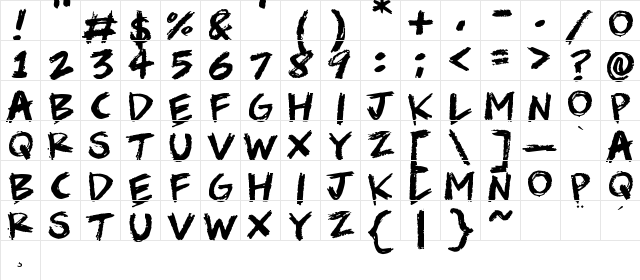
Scribble Scrawl Regular
Design Context for Scribble Scrawl Typeface
Scribble Scrawl is a composed and adaptable typeface that performs quietly and consistently across a wide range of design contexts.
Pro Tip: Pair Scribble Scrawl with a font of contrasting weight or personality to build a more expressive typographic hierarchy.